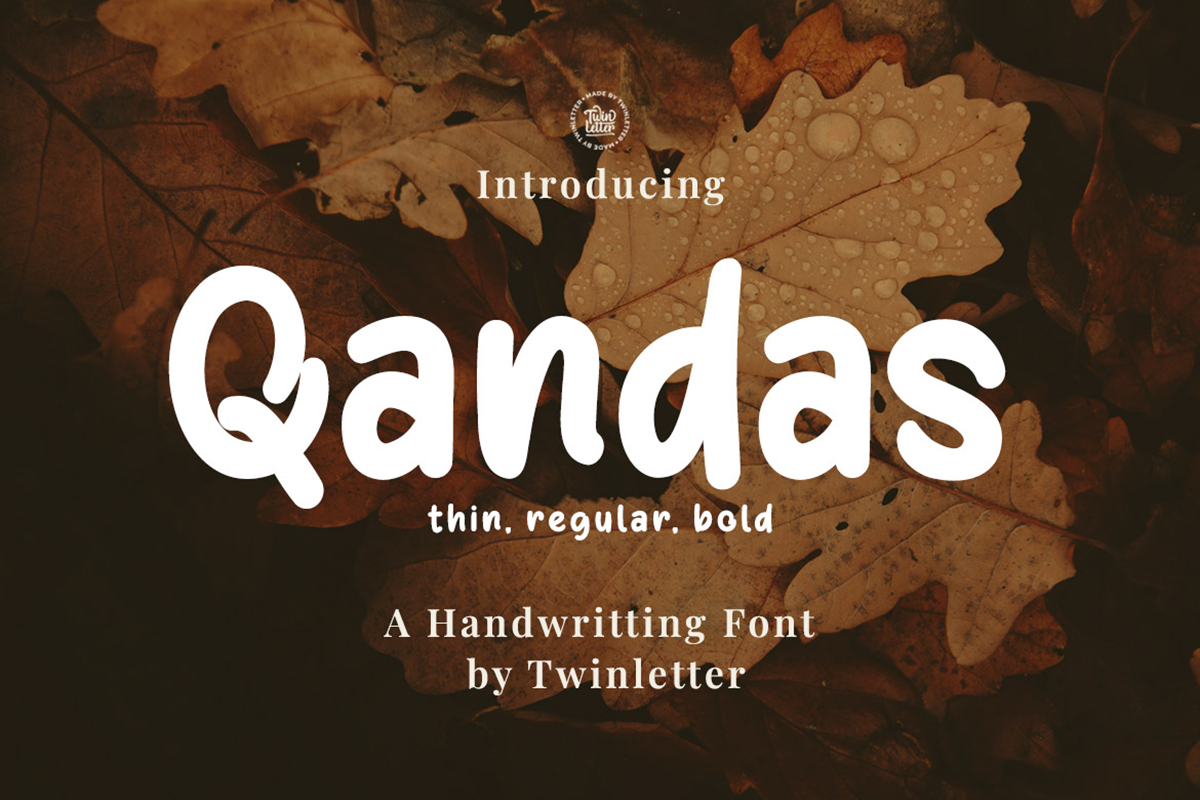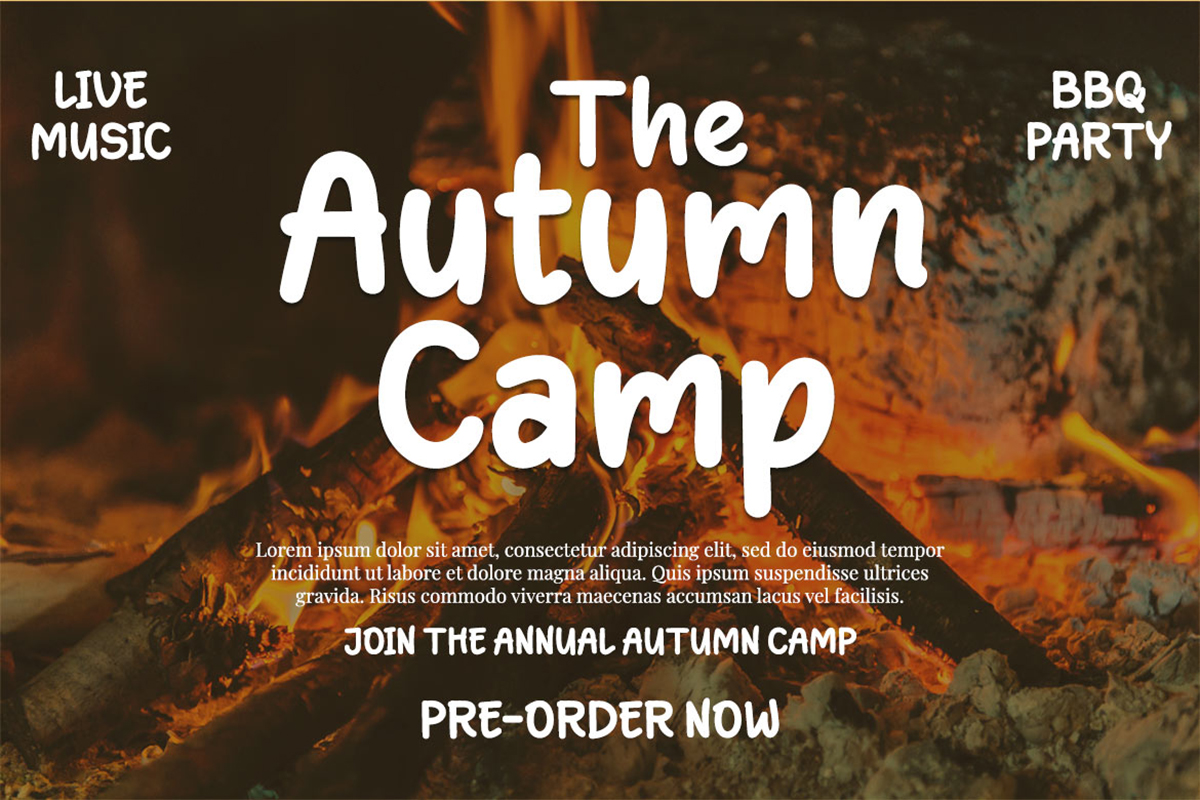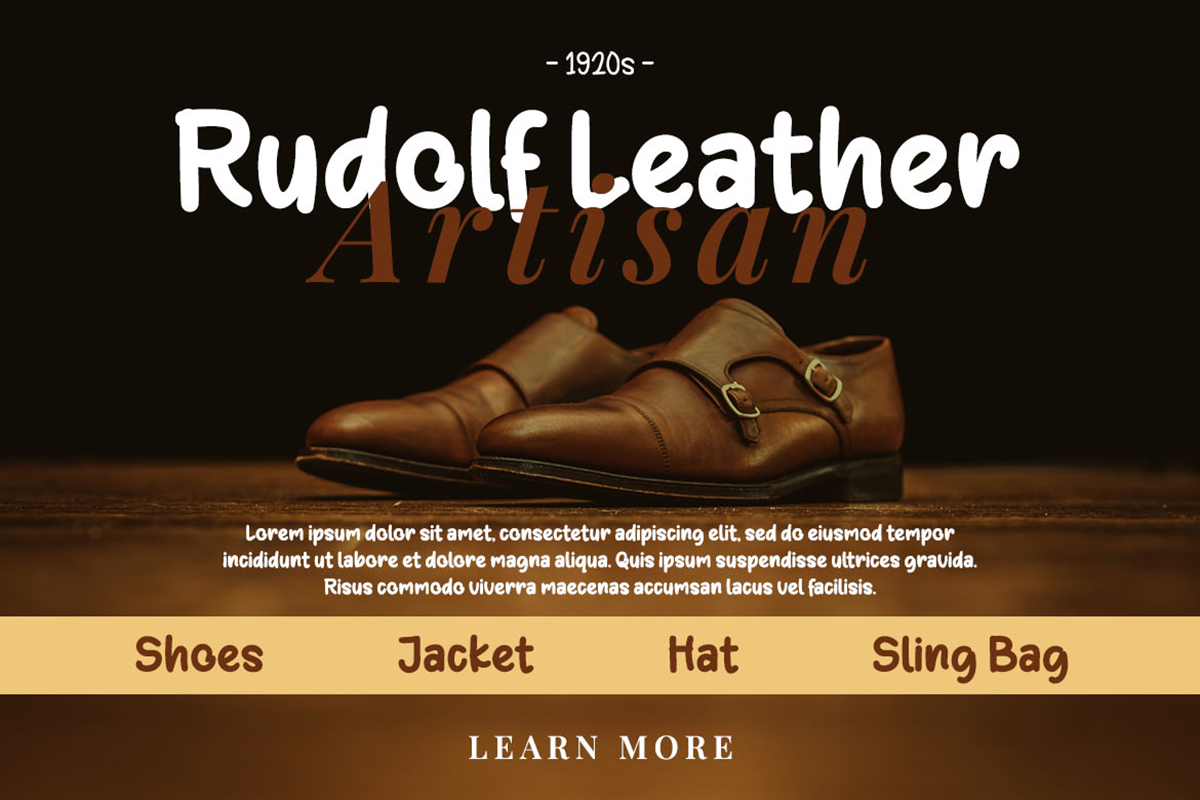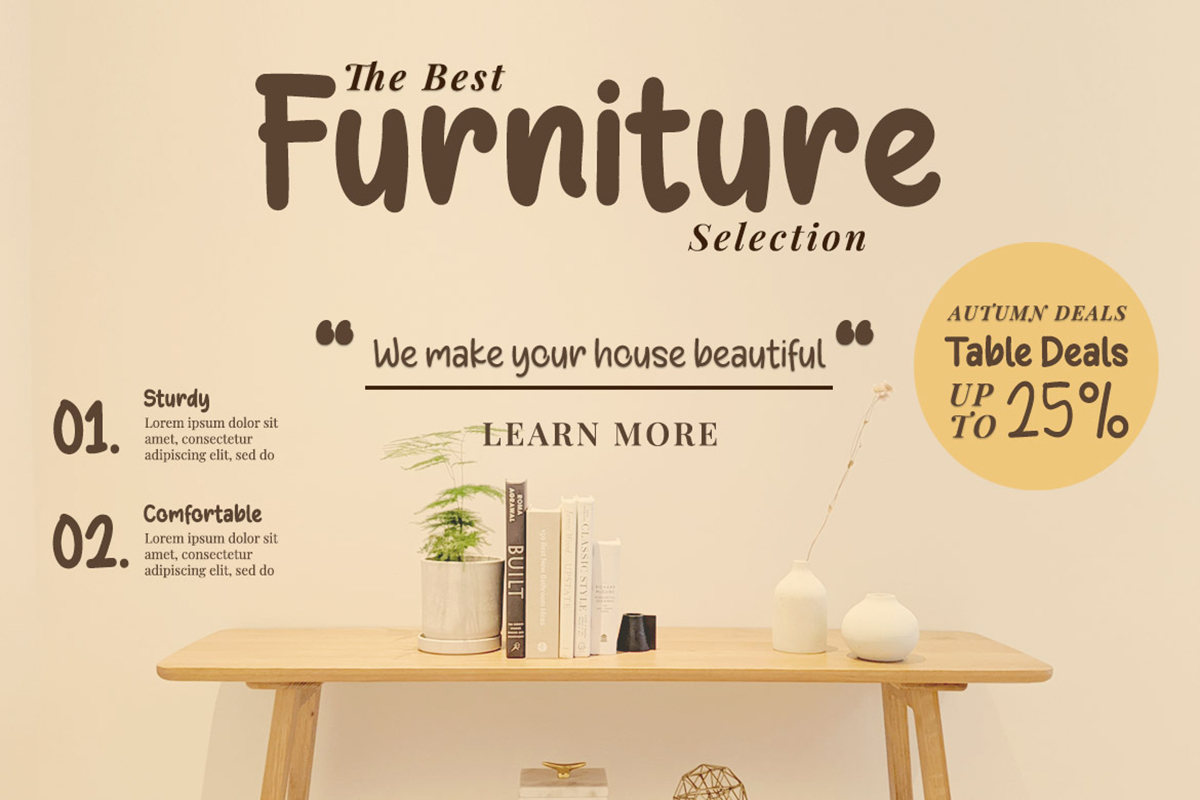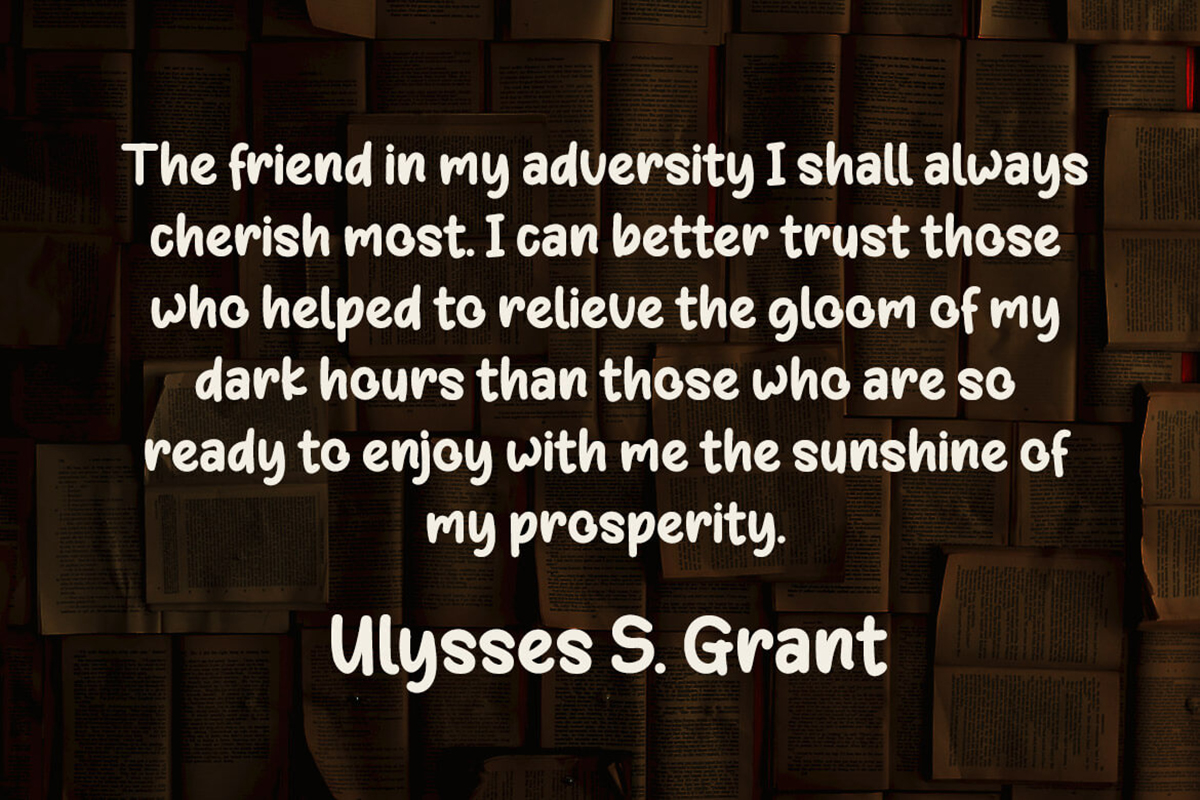
Qandas Free Font
Discover Qandas Free Font – a clean and refreshing handwritten font, meticulously polished to exude a sense of neat professionalism while maintaining a touch of versatility and relaxation. Embrace the captivating charm of this font as it becomes an incredible asset in your fonts’ library, elevating every creation you embark on, regardless of the topic. Unleash the full potential of “Qandas” and witness how it brings a sense of sophistication to your designs. This free typeface was designed by a talented Twin Letter. If you like it don’t forget to check out the full version.